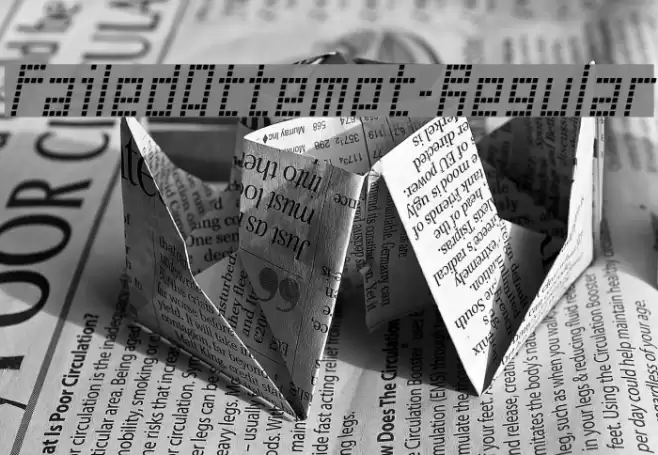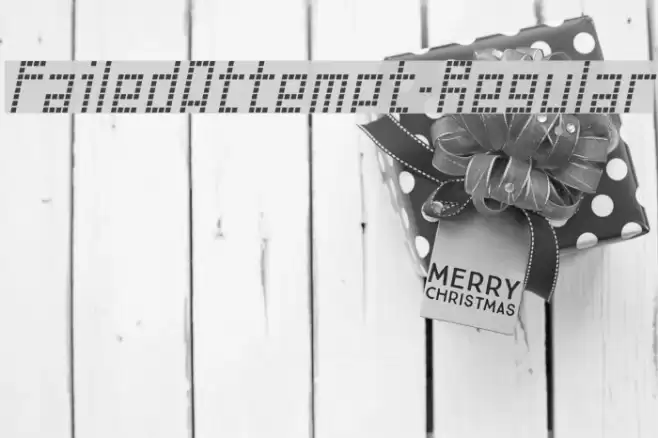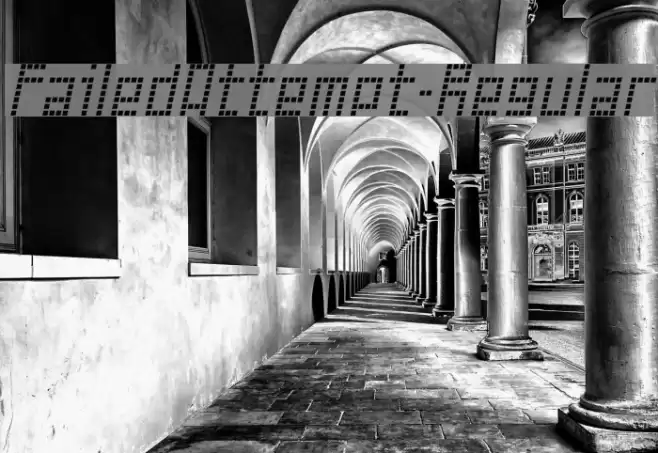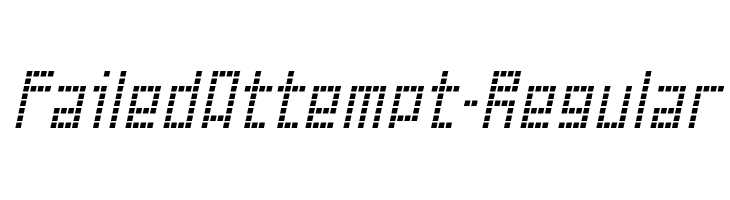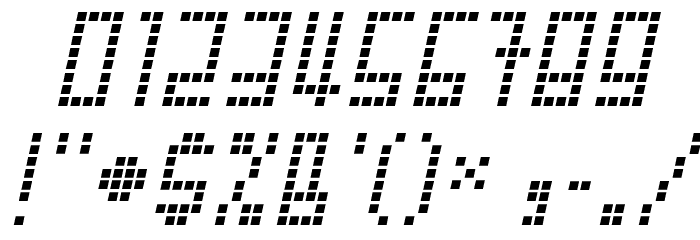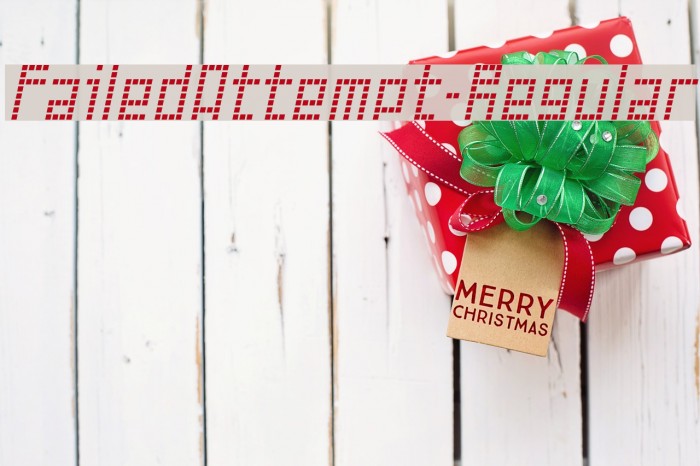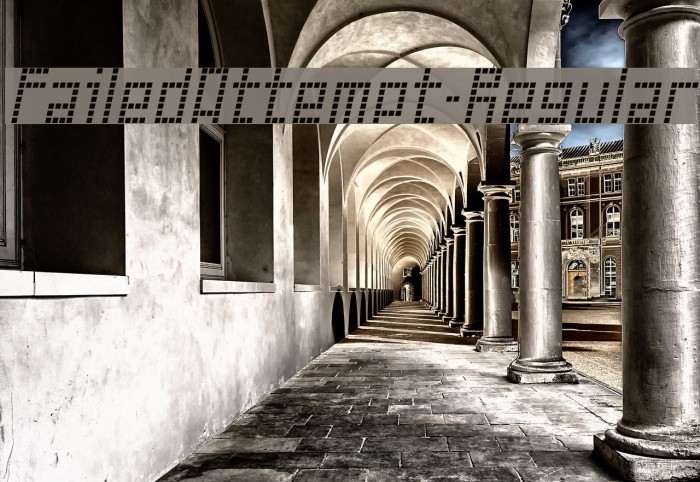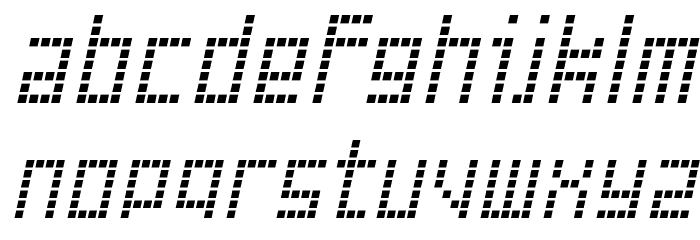
FailedAttempt-Regular Font
FailedAttempt-Regular Description
This font features a distinct pixelated design, reminiscent of digital displays or retro video game graphics. Each character is constructed from a grid of small squares, creating a blocky and geometric appearance. The uppercase and lowercase letters maintain a consistent style, with clear differentiation between character heights. Numbers and special characters follow the same pixelated pattern, ensuring uniformity across all glyphs. The font's unique style makes it stand out, offering a nostalgic yet modern aesthetic that is both playful and bold.
A pixelated, digital-style font with a retro video game aesthetic from Uncategorized fonts.
- Proposed Projects: Ideal for digital art projects, retro-themed designs, video game graphics, and tech-related branding.